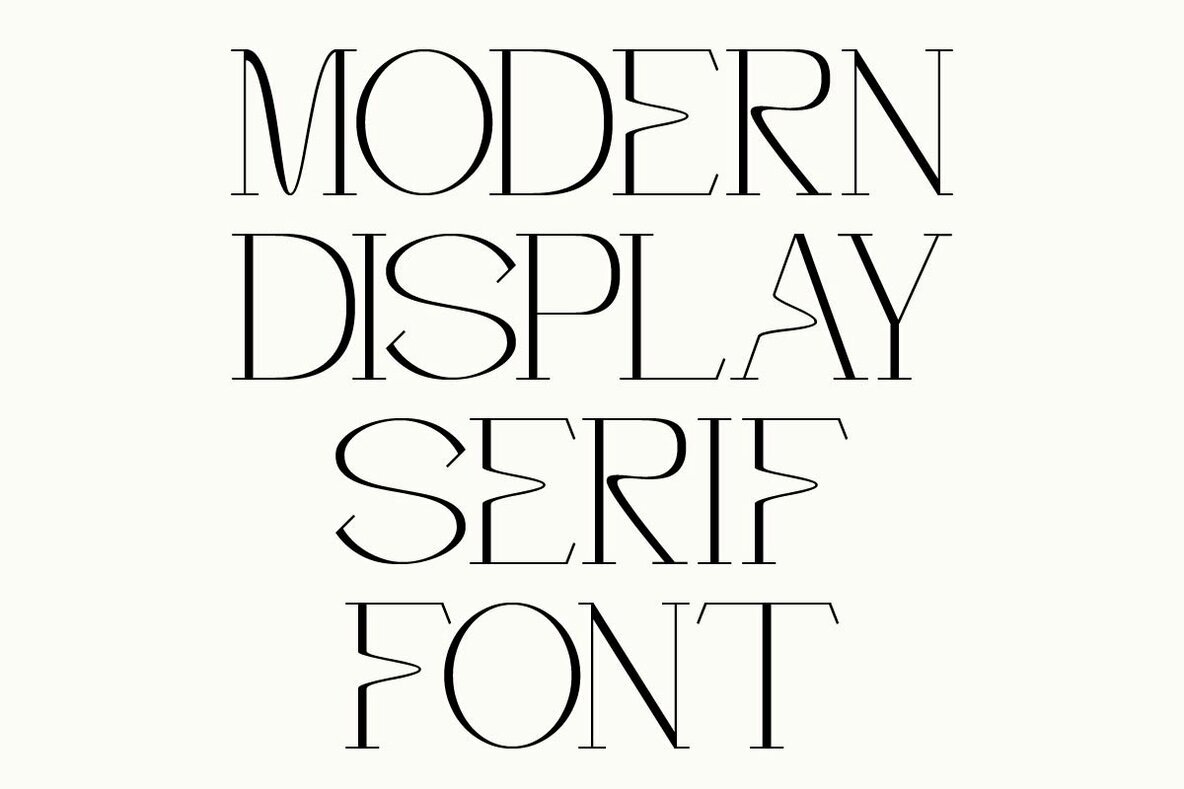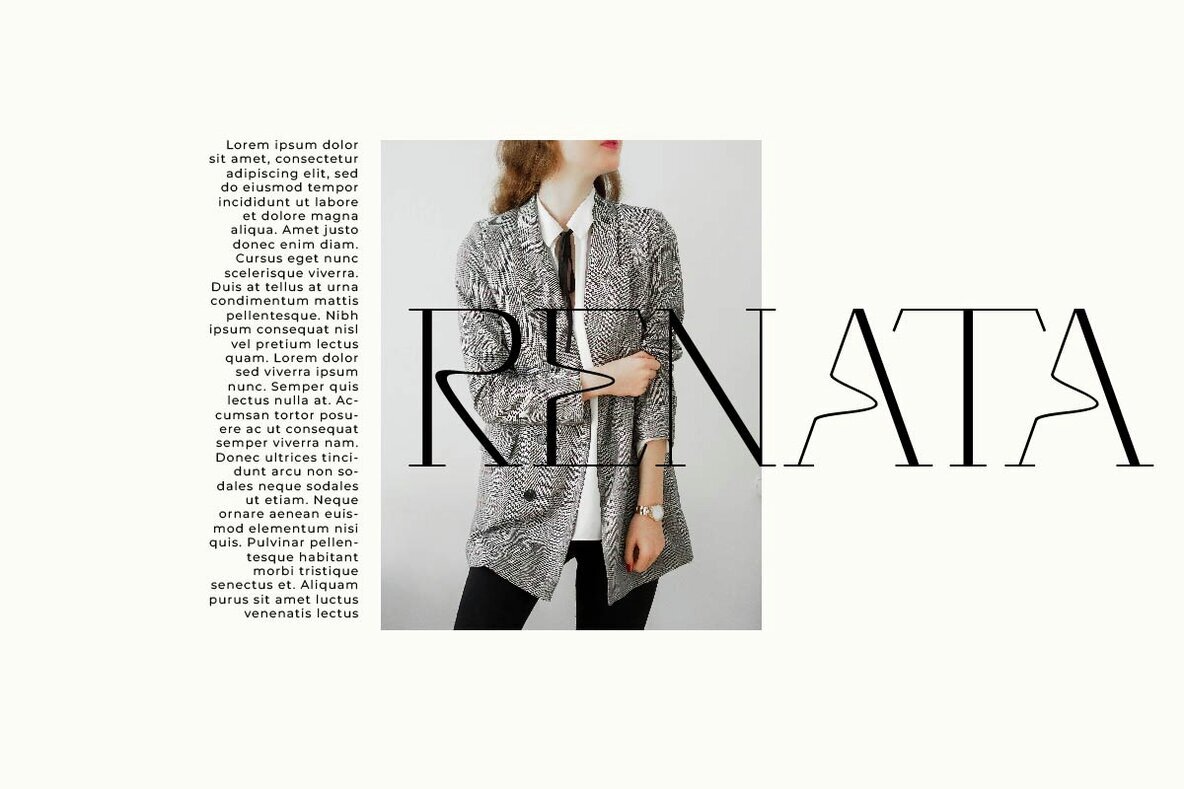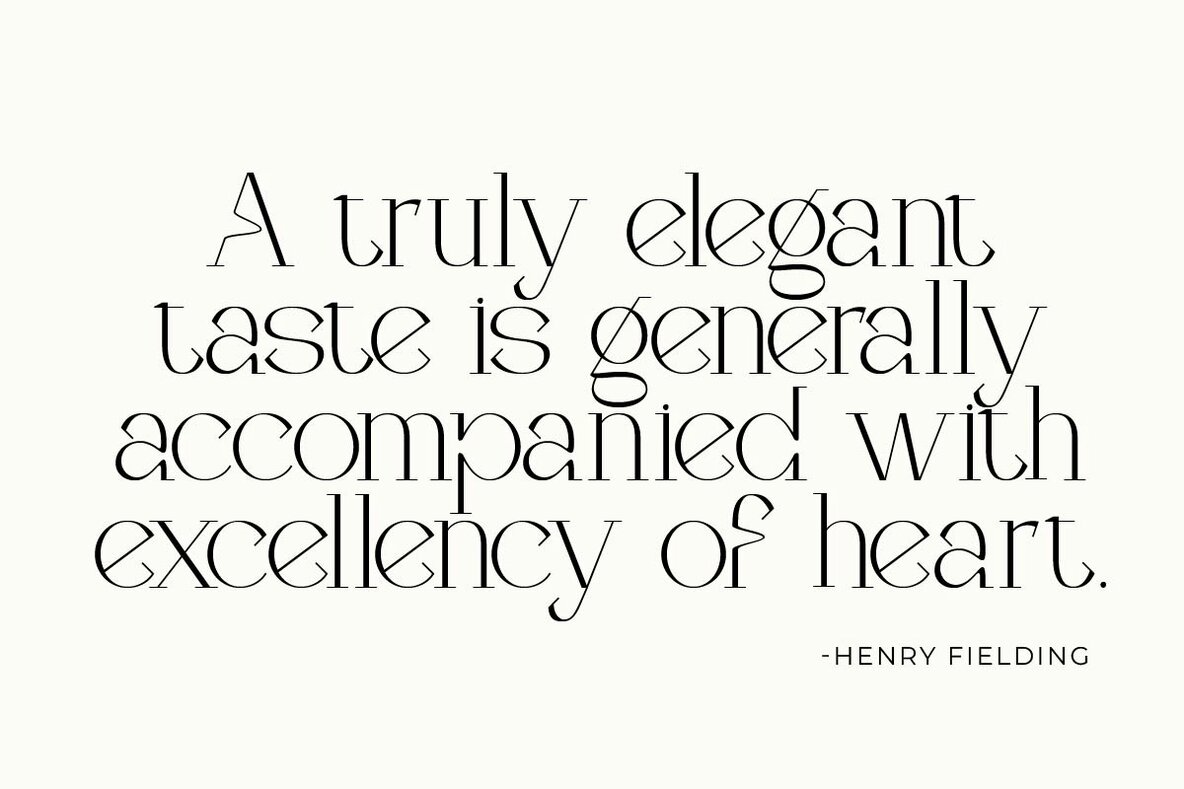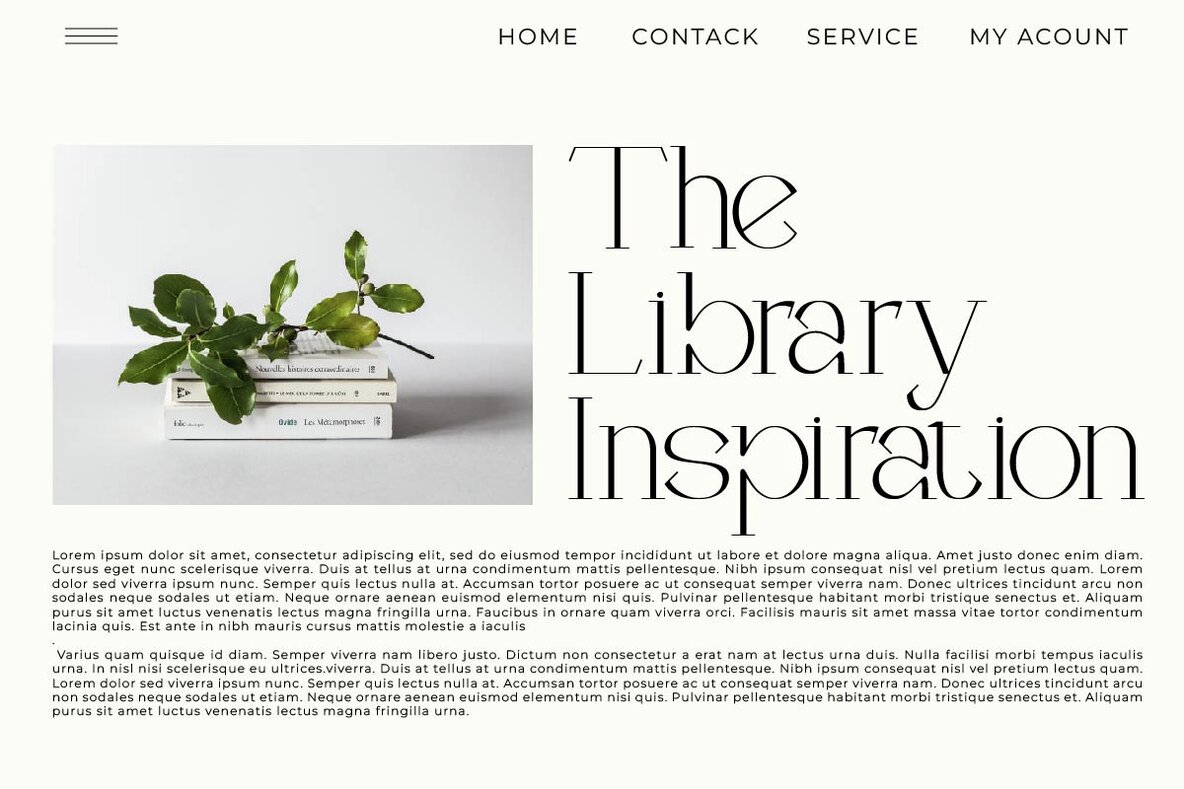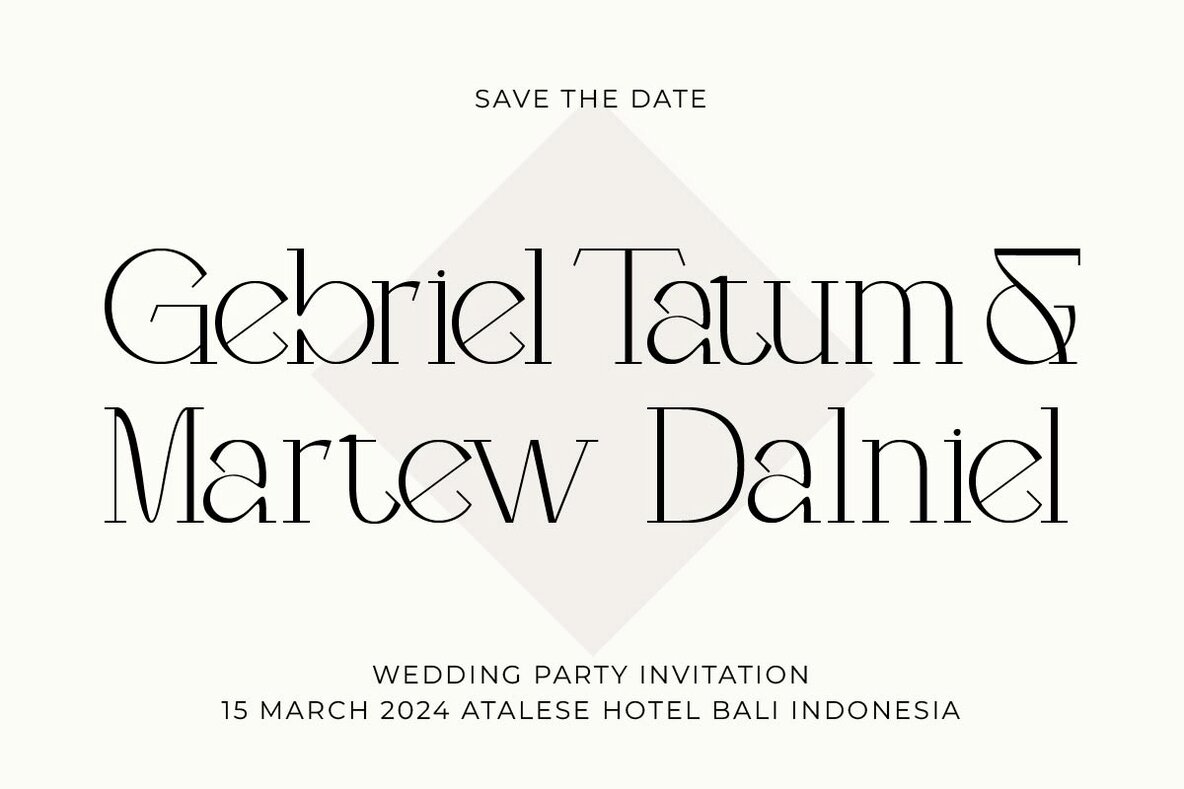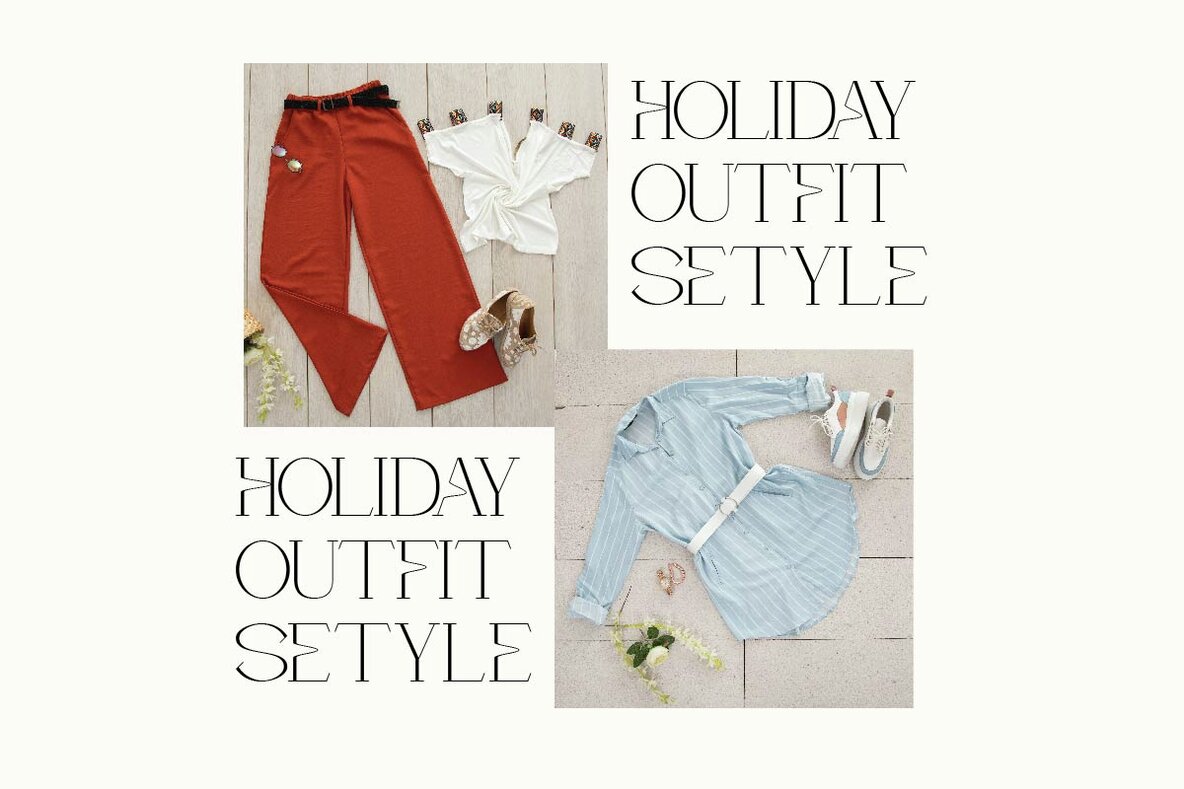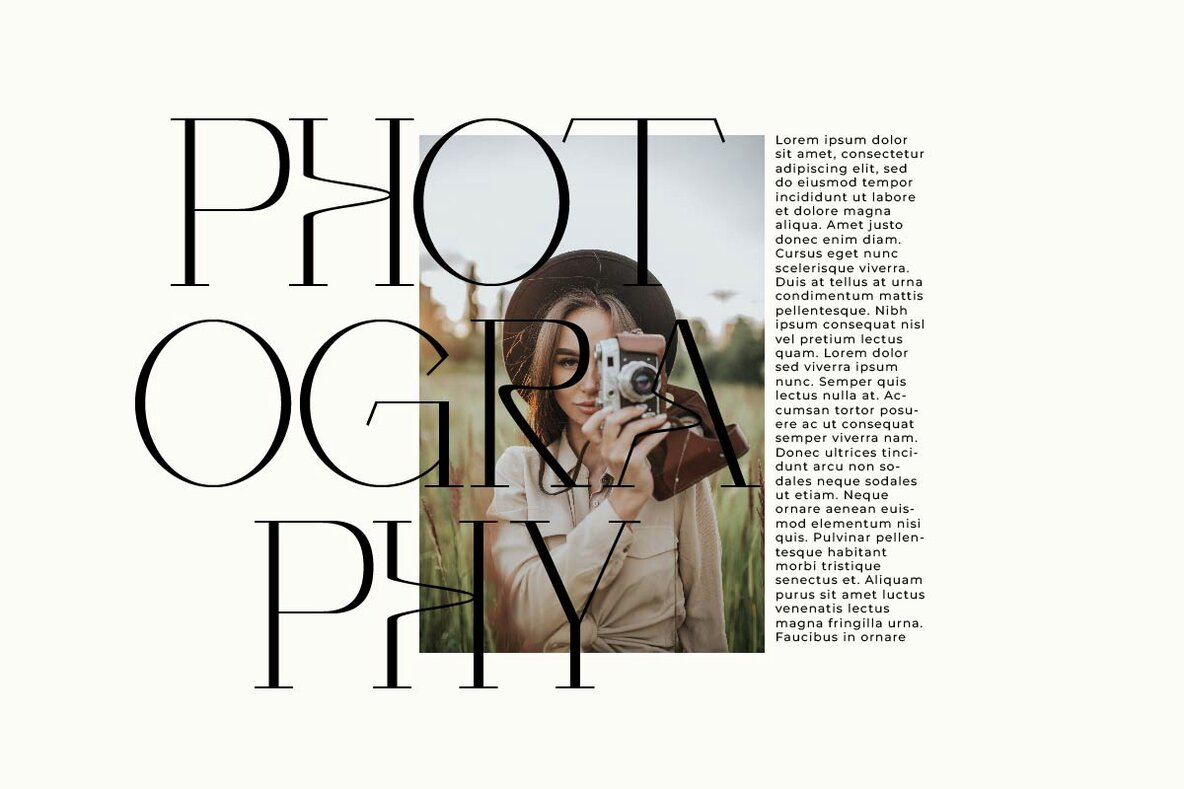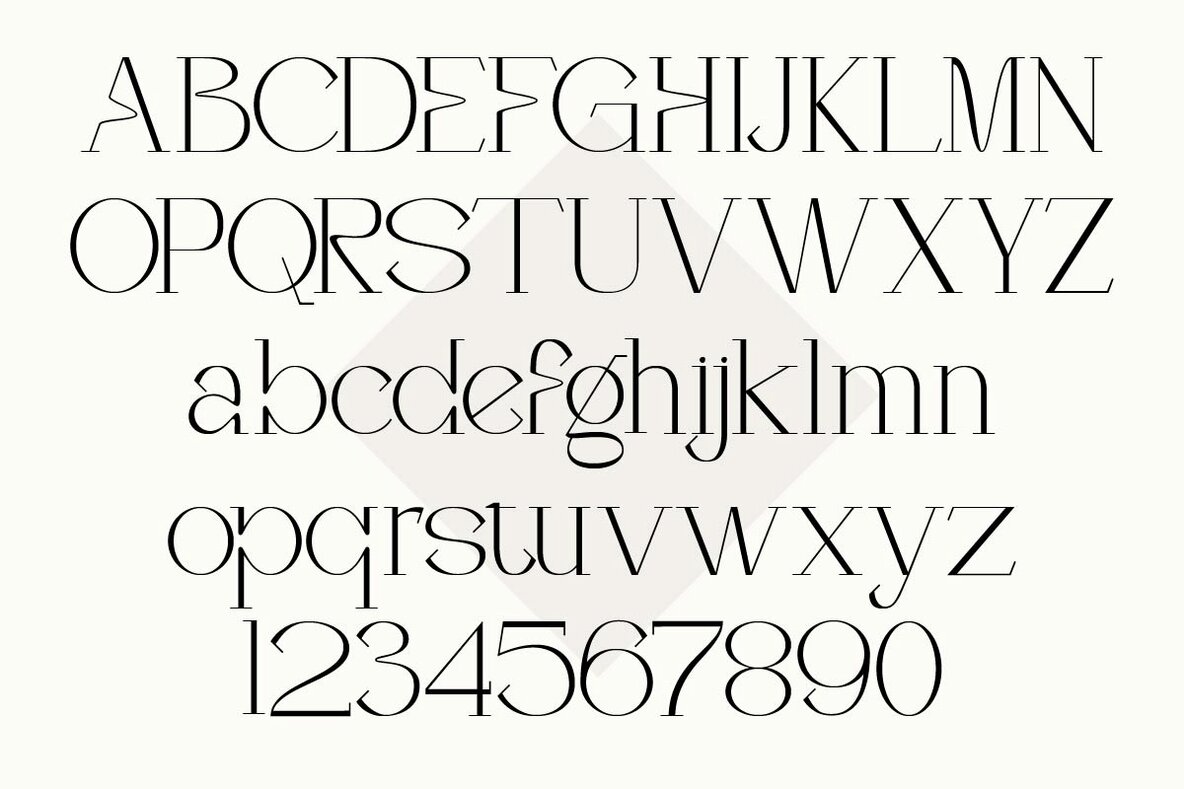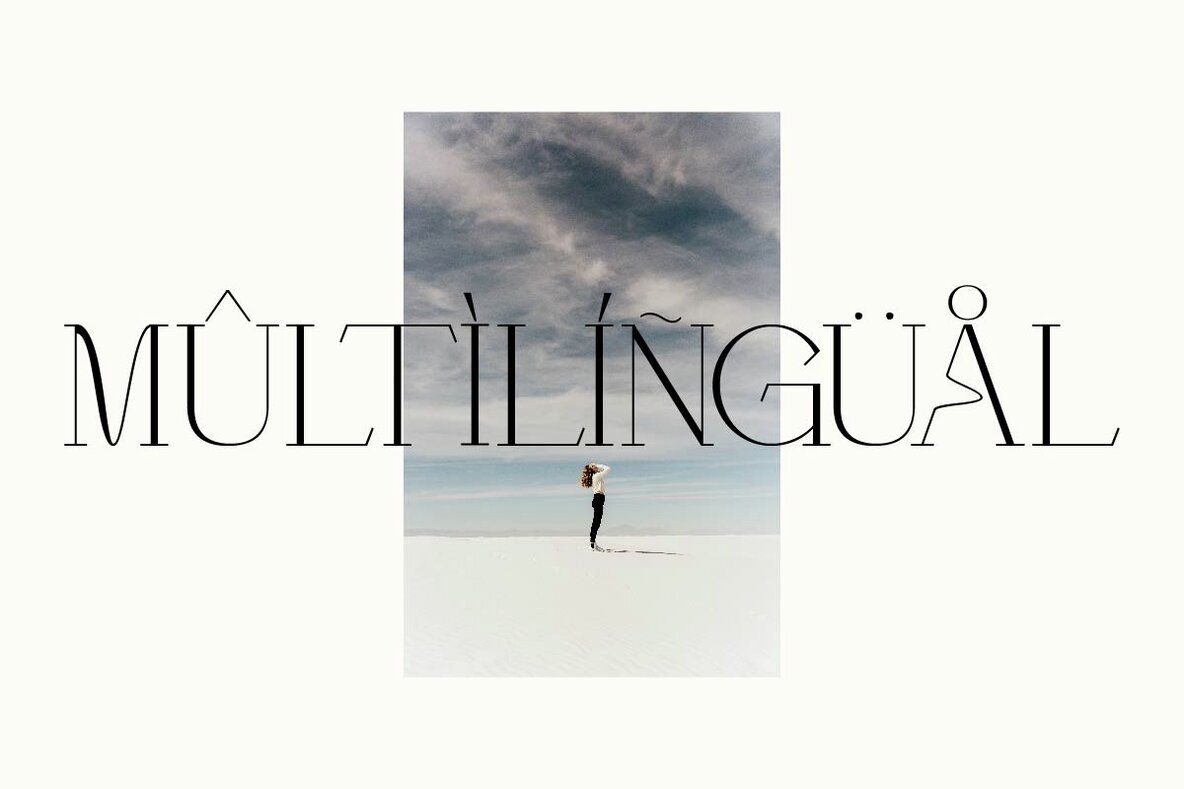
Calentha 1
This typeface is a contemporary sans-serif with a striking and innovative design, characterized by its geometric shapes and high-contrast strokes. It's ideal for fashion and lifestyle branding, offering a clean yet edgy look that adds a sophisticated and chic touch to any visual communication.